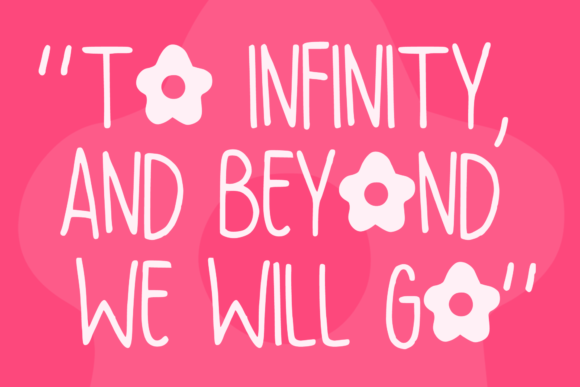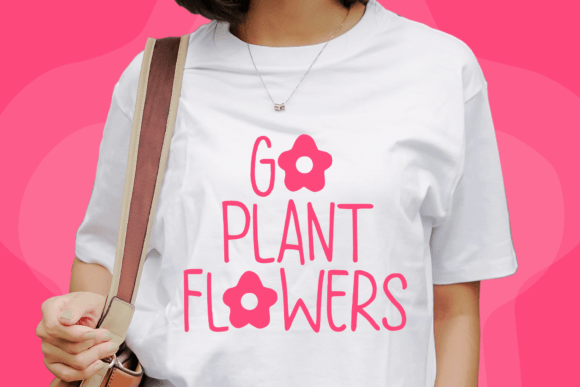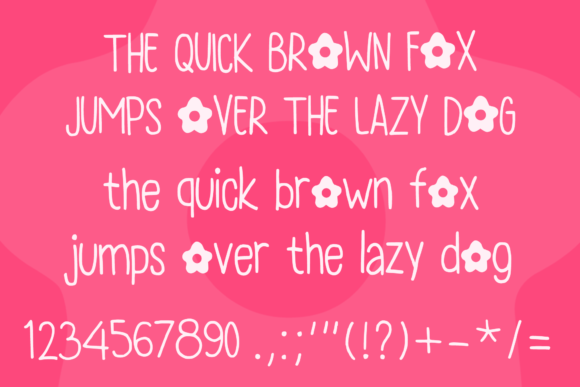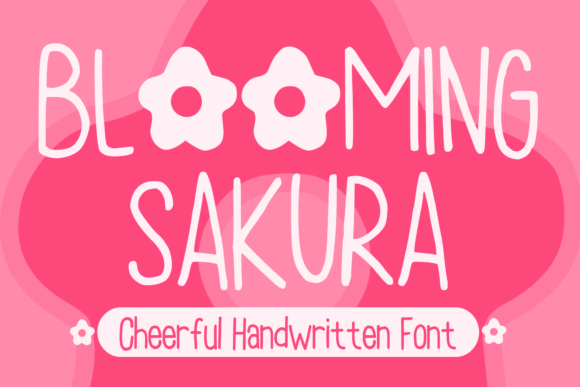
Blooming Sakura Font: Add a Touch of Whimsy to Your Designs
Are you tired of using the same old fonts in your designs? Do you want to add a touch of whimsy and playfulness to your creations? Look no further than the Blooming Sakura font! This fun and unique font is perfect for designers and crafters who want to add a decorative twist to their work.
What is Blooming Sakura Font?
Blooming Sakura is a fun font with a flower decorative twist. It’s a one-of-a-kind font that’s sure to make your designs stand out. With its playful and casual style, it’s perfect for a wide range of projects, from regular typing notes to t-shirts, kids’ book designs, greeting cards, stickers, posters, and more.
Features of Blooming Sakura Font
So, what makes Blooming Sakura font so special? Here are just a few of its key features:
• Unique and playful style: Blooming Sakura font has a one-of-a-kind style that’s sure to add a touch of whimsy to your designs.
• Versatile: This font is perfect for a wide range of projects, from digital designs to print materials.
• High-quality: This font is made up of high-quality characters, ensuring that your designs look professional and polished.
Uses for Blooming Sakura Font
So, what can you use Blooming Sakura font for? The possibilities are endless! Here are just a few ideas to get you started:
• T-shirts and apparel: Add a touch of whimsy to your t-shirt designs with Blooming Sakura font.
• Kids’ book designs: Create fun and engaging kids’ books with this playful font.
• Greeting cards: Add a personal touch to your greeting cards with Blooming Sakura font.
• Stickers and labels: Use this font to create fun and colorful stickers and labels.
• Posters and flyers: Add a touch of playfulness to your posters and flyers with Blooming Sakura font.
Why Choose Blooming Sakura Font?
So, why should you choose Blooming Sakura font for your designs? Here are just a few reasons:
• Stand out from the crowd: With its unique and playful style, Blooming Sakura font is sure to make your designs stand out.
• Add a touch of whimsy: This font is perfect for designers and crafters who want to add a touch of whimsy and playfulness to their work.
• High-quality: This font is made up of high-quality characters, ensuring that your designs look professional and polished.
Tips for Using Blooming Sakura Font
Here are a few tips for using Blooming Sakura font in your designs:
• Experiment with different colors: Blooming Sakura font looks great in a variety of colors, so don’t be afraid to experiment.
• Pair with other fonts: Try pairing Blooming Sakura font with other fonts to create a unique and interesting look.
• Use it sparingly: While Blooming Sakura font is playful and fun, it can be overwhelming if used too much. Use it sparingly to add a touch of whimsy to your designs.
In conclusion, Blooming Sakura font is a fun and unique font that’s perfect for designers and crafters who want to add a touch of whimsy and playfulness to their work. With its playful and casual style, it’s perfect for a wide range of projects, from regular typing notes to t-shirts, kids’ book designs, greeting cards, stickers, posters, and more. So why not give it a try and see how it can add a touch of magic to your designs?